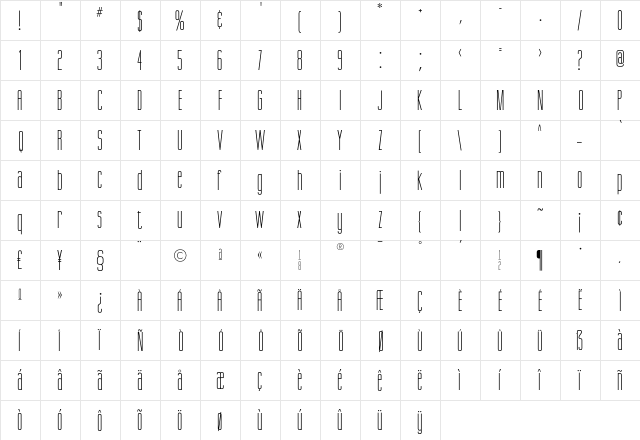
Giotto Regular
Design Context for Giotto Typeface
Giotto offers clean, dependable letterforms without strong stylistic allegiance, making it a practical choice for designers who need flexibility.
Pro Tip: Pair Giotto with a font of contrasting weight or personality to build a more expressive typographic hierarchy.